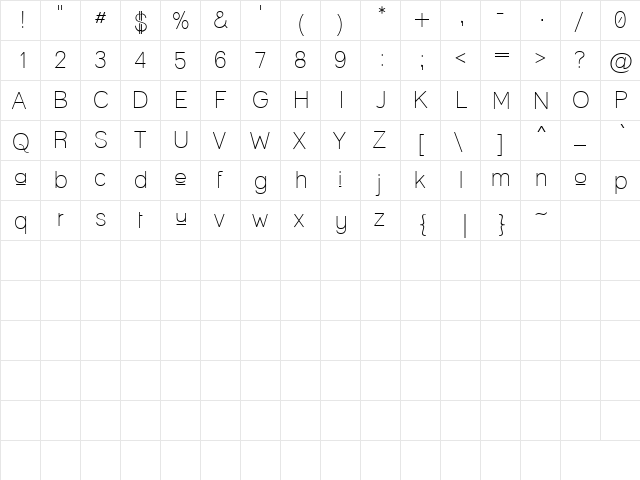
Upper Lane Light Regular Font Preview
Upper Lane Light Regular
Upper Lane Light Regular Font Details
Design Context for Upper Lane Light Typeface
Upper Lane Light is a composed and adaptable typeface that performs quietly and consistently across a wide range of design contexts. Its slender proportions lend an understated elegance to any composition.